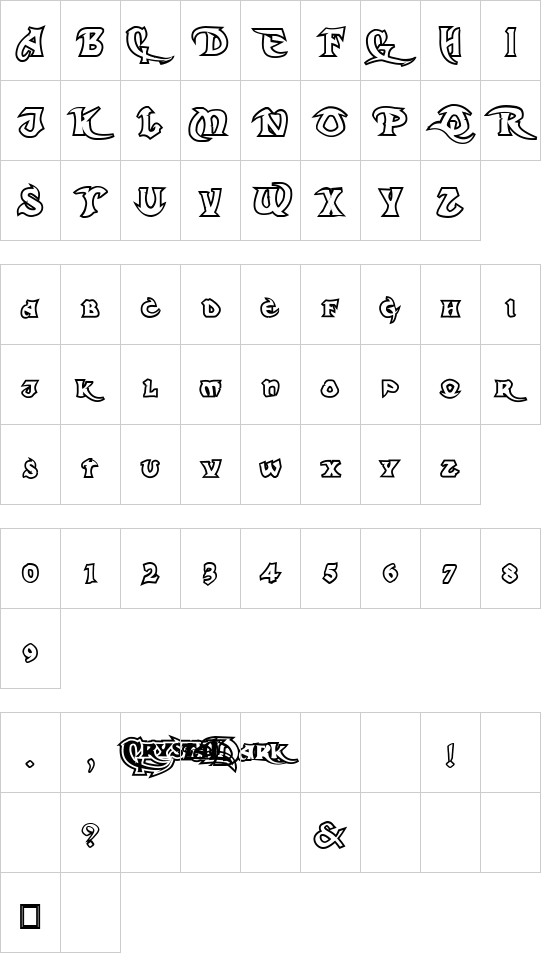
Dark Crystal Outline is a hollow fantasy display face whose letters are drawn purely as crisp outlines, leaving the centers open and empty. The shapes carry the tall, slightly mystical proportions of classic movie title cards, with sharp corners and clean contours that suggest faceted crystal or carved stone. With nothing but the contour to define each character, the mood stays airy, otherworldly, and lightweight even at large sizes.
The open look reads well on fantasy poster artwork, book covers, gaming logos, and event flyers where you want commanding shapes without a wall of solid ink. It layers nicely over background imagery too. Dark Crystal Outline is free to download as a TrueType file, and you can preview it with your own words before you commit.